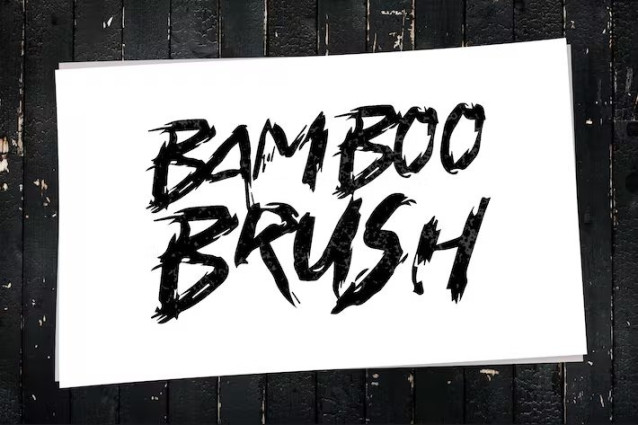
Bamboo Brush Font
Bamboo Brush Font is a casual font with natural stroke, comes with uppercase, lowercase, numerals, and punctuation. This font will be perfect pick for various designs & artworks like social media post, brand type, posters, merchandise, packaging, headlines, merchandises, t-shirt, and many more.